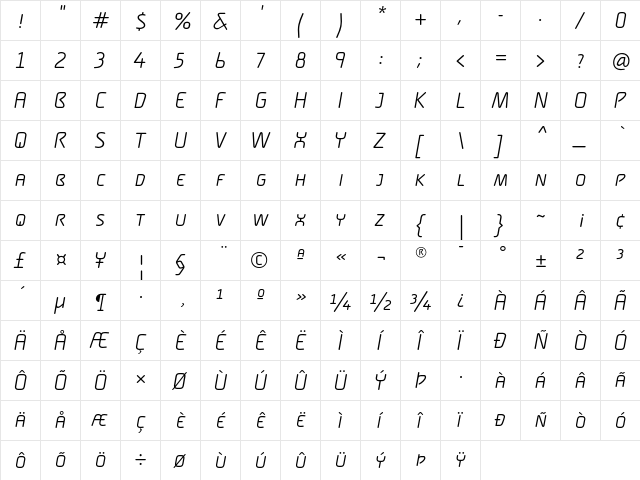
Alega-LightSmallCapsItalic Regular
| Foundry | Siegfried Rueckel, published by FontShop International for the FontFont library |
Design Context for Alega-LightSmallCapsItalic Typeface
Alega-LightSmallCapsItalic is a composed and adaptable typeface that performs quietly and consistently across a wide range of design contexts. The dynamic lean of this cut emphasises speed and emphasis in any layout. Its slender proportions lend an understated elegance to any composition.
Pro Tip: Try Alega-LightSmallCapsItalic for annotation and caption copy alongside an upright companion — the contrast in angle creates a dynamic but ordered typographic system.